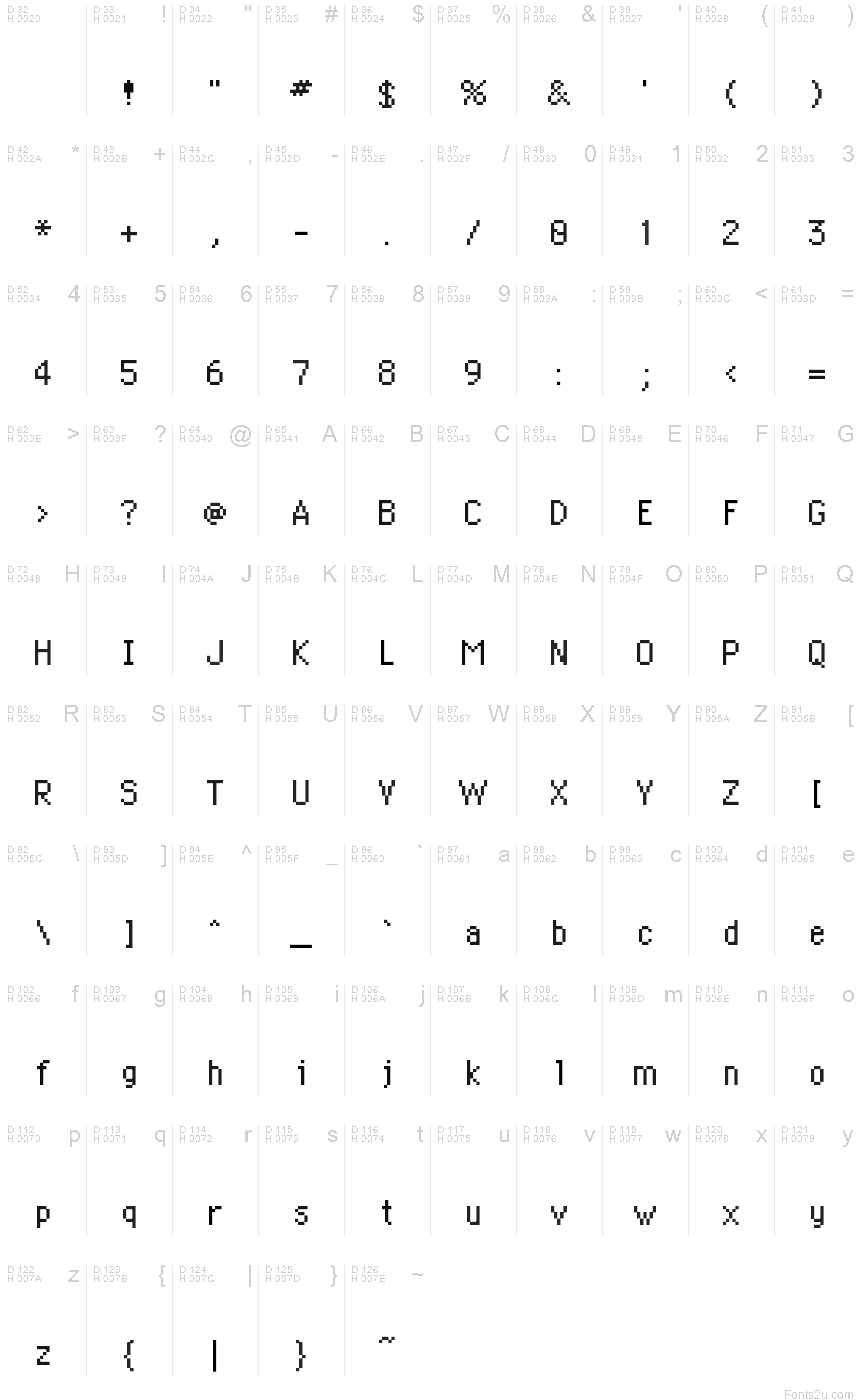
Wonder Mail
This is a port of the font in Pokmon Mystery Dungeon 1 and 2, containing basic Latin and numbers, punctuation, accented letters, fullwidth Latin and numbers, halfwidth Latin and numbers, Hiragana, Katakana, Japanese punctuation, limited Greek letters, Unowns, and many more extras totaling to over 1,000 glyphs.
Every glyph was painstakingly assembled by hand to ensure complete accuracy.
Ported from Pokemon Mystery Dungeon 1 and 2